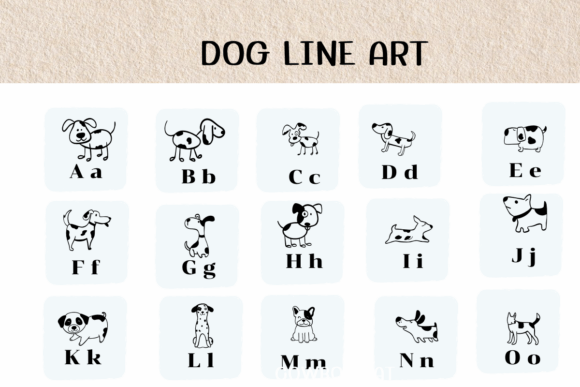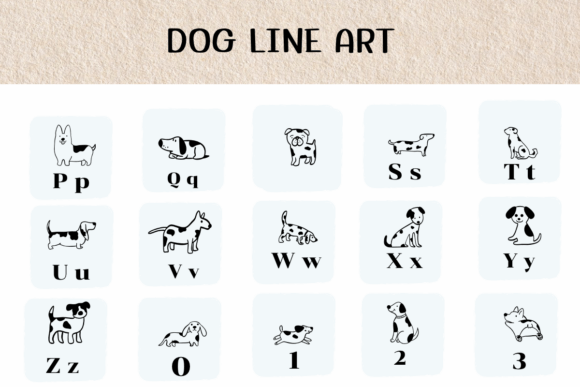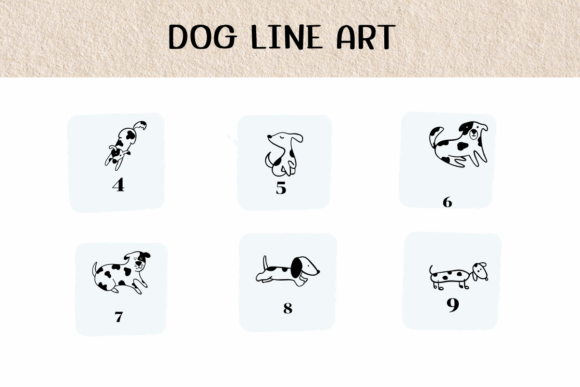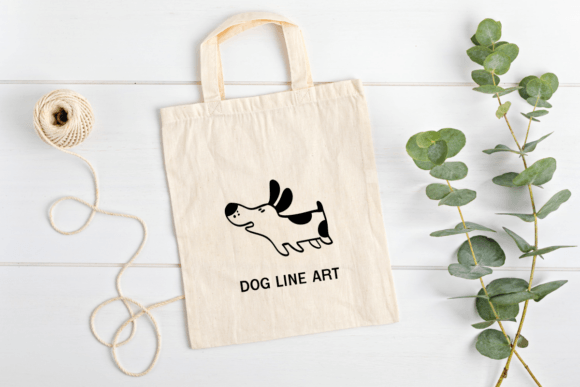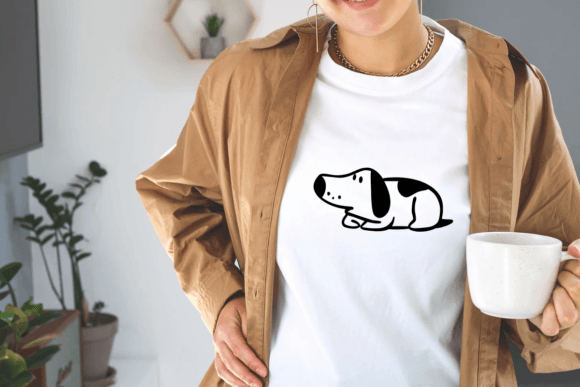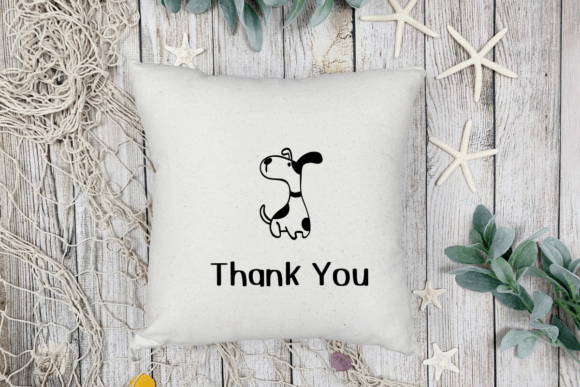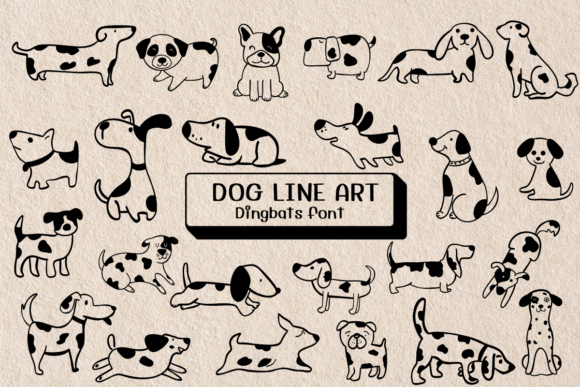
Unleash Your Creativity with Dog Line Art Font: A Playful Dingbat Font for Pet Lovers
Are you a pet lover, designer, or crafter looking for a fun and creative way to add a personal touch to your projects? Look no further than the Dog Line Art Font, a delightful dingbat font that transforms letters and numbers into adorable puppy designs. πΆ
What is Dog Line Art Font?
Dog Line Art Font is a unique and playful dingbat font that features simple line drawings of dogs for every letter and number. This charming font is perfect for anyone who loves dogs and wants to add a touch of whimsy to their designs. Whether you’re working on a project for a pet-related business, creating invitations for a pet-themed party, or simply want to add some personality to your social media posts, Dog Line Art Font is the paw-fect choice.
Key Features of Dog Line Art Font
- Adorable puppy designs: Each letter and number in the font is replaced with a cute and simple line drawing of a dog, making it perfect for pet lovers and designers who want to add a playful touch to their work.
- Versatile: This font is perfect for a wide range of projects, from pet-themed crafts and invitations to social media graphics and marketing materials.
- Fun and playful: Dog Line Art Font adds a touch of personality and whimsy to any design, making it perfect for projects that need a little extra flair.
Uses for Dog Line Art Font
Dog Line Art Font is a versatile font that can be used in a variety of creative projects, including:
- Pet-themed crafts: Use Dog Line Art Font to create adorable pet-themed crafts, such as pet tags, collars, and leashes.
- Invitations and party decor: Add a playful touch to your pet-themed party invitations and decor with Dog Line Art Font.
- Social media graphics: Use Dog Line Art Font to create fun and engaging social media graphics, such as dog-themed memes and posts.
- Marketing materials: Add a touch of personality to your pet-related business’s marketing materials, such as brochures, flyers, and business cards.
- Stationery and gift tags: Use Dog Line Art Font to create adorable stationery and gift tags for pet lovers.
Tips for Using Dog Line Art Font
Here are a few tips for getting the most out of Dog Line Art Font:
- Experiment with different colors and textures: Add depth and interest to your designs by experimenting with different colors and textures.
- Mix and match with other fonts: Combine Dog Line Art Font with other fonts to create unique and eye-catching designs.
- Use it sparingly: Use Dog Line Art Font sparingly to add a touch of personality to your designs, rather than overwhelming the viewer.